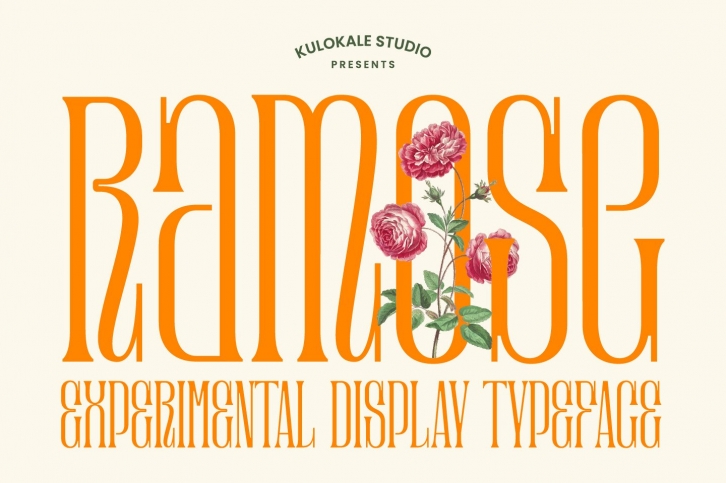
Serif Classic Display FONT Download
Serif Classic Display is a gorgeous font that was realeased on May 23, 2022. The font can be used in many style contexts and design environments. Perfect for invitations, magazines, websites, logos, and more! It was designed by Kulokale Studio and the file size is 20.64 MB. Thanks for checking out this font!